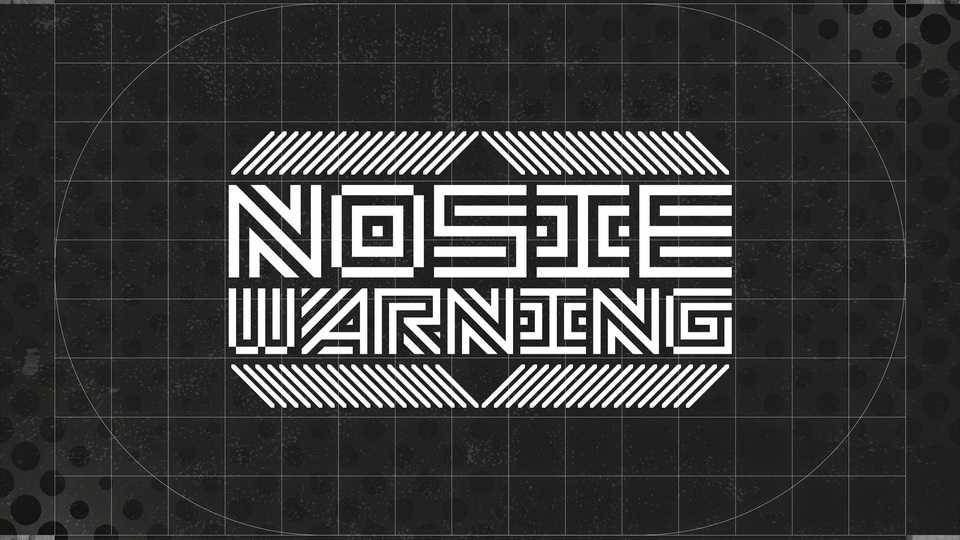
Noise Warning Font › Fontesk – Download Grátis
Download Noise Warning font, a display typeface with 9×9 grids and corresponding size of arcs and slashes as the main design specifications. Noise Warning is very suitable for the design with a sense of futuristic or technological sense.